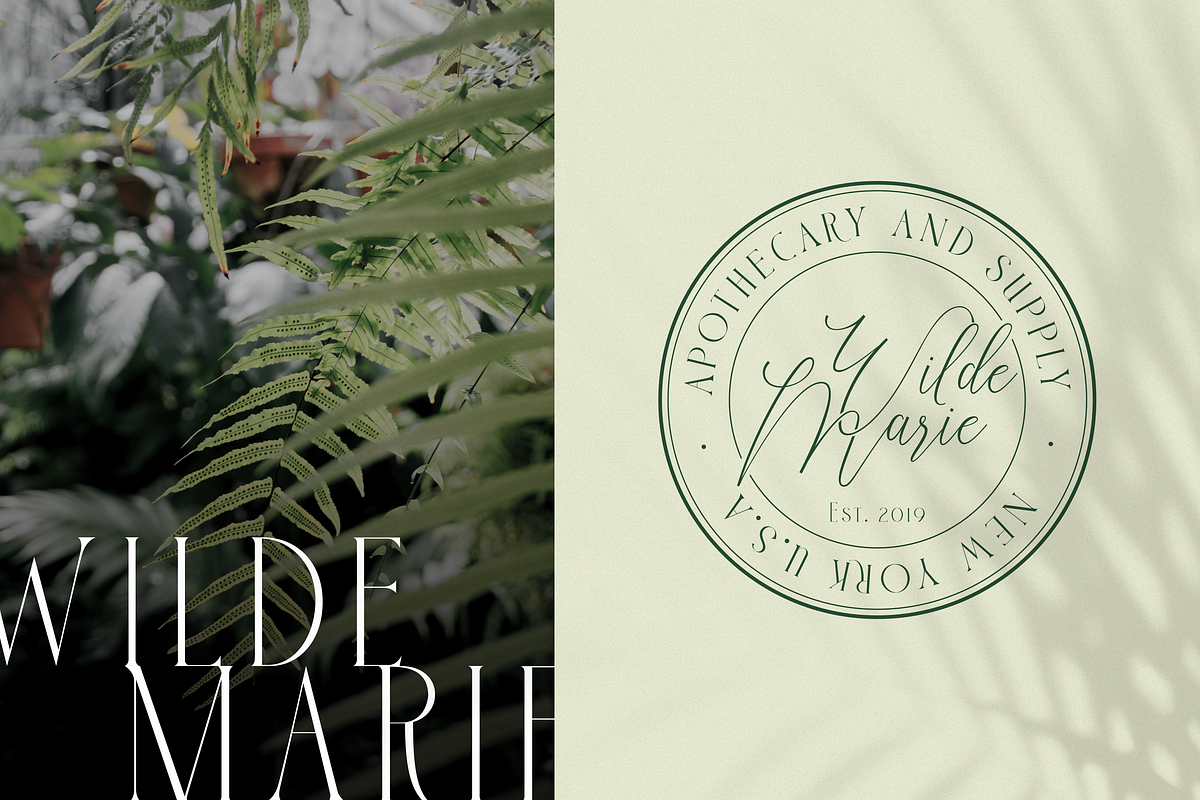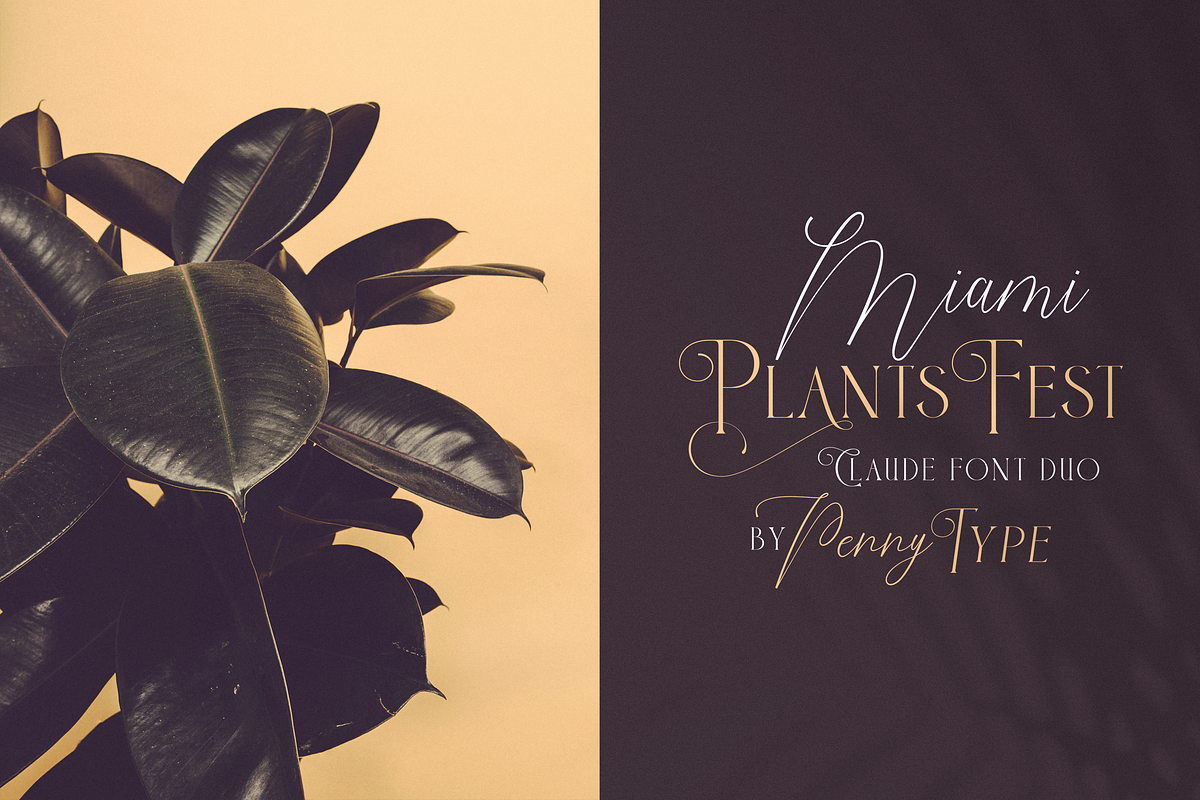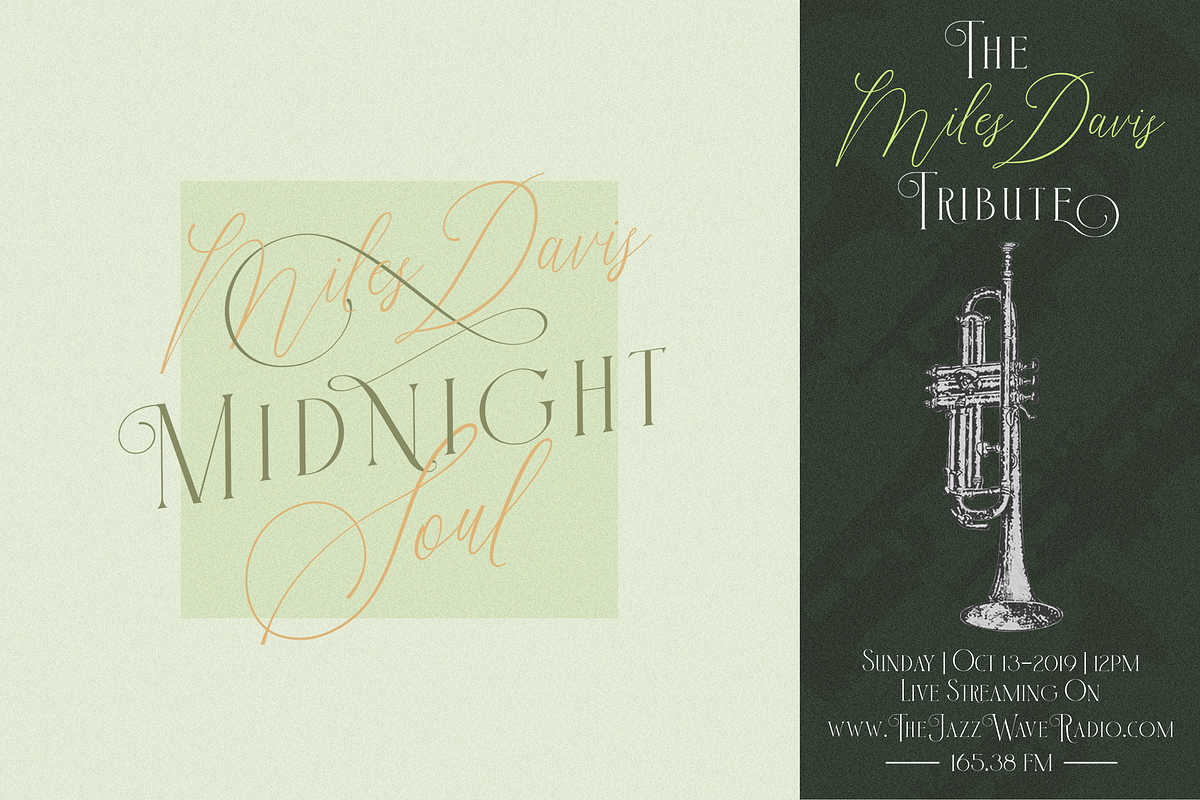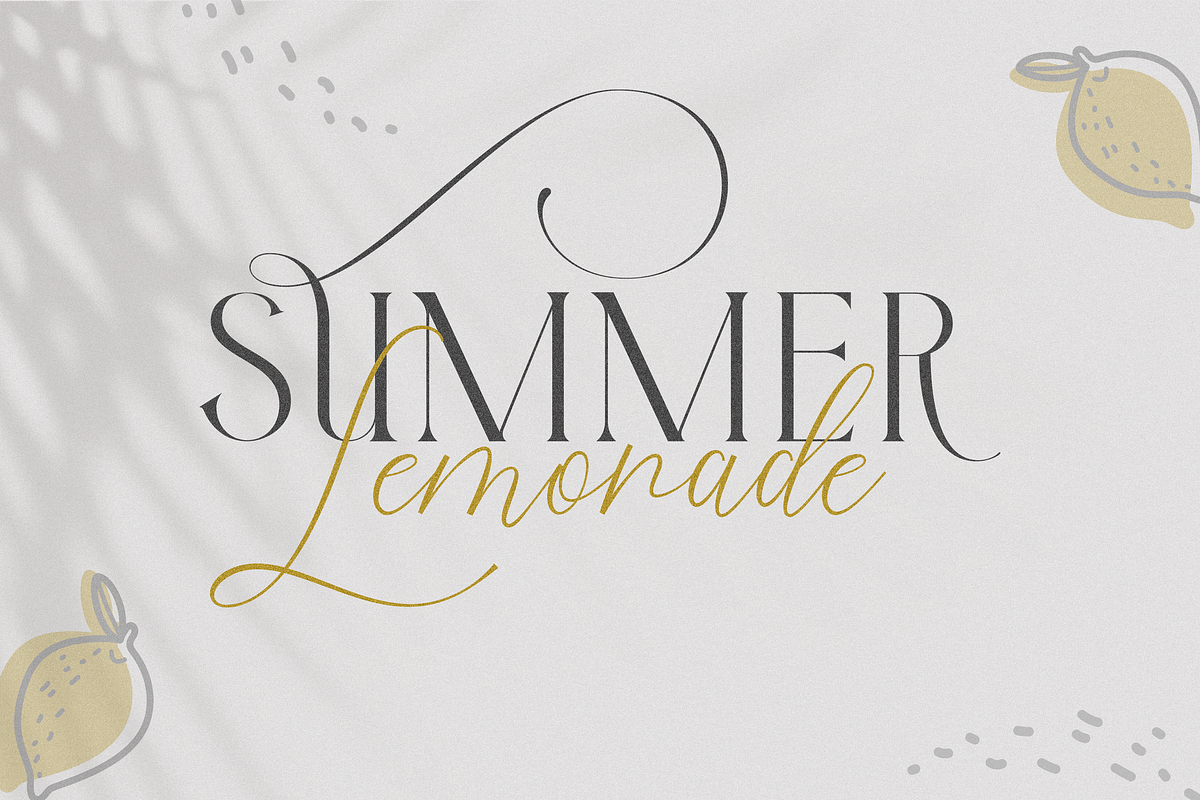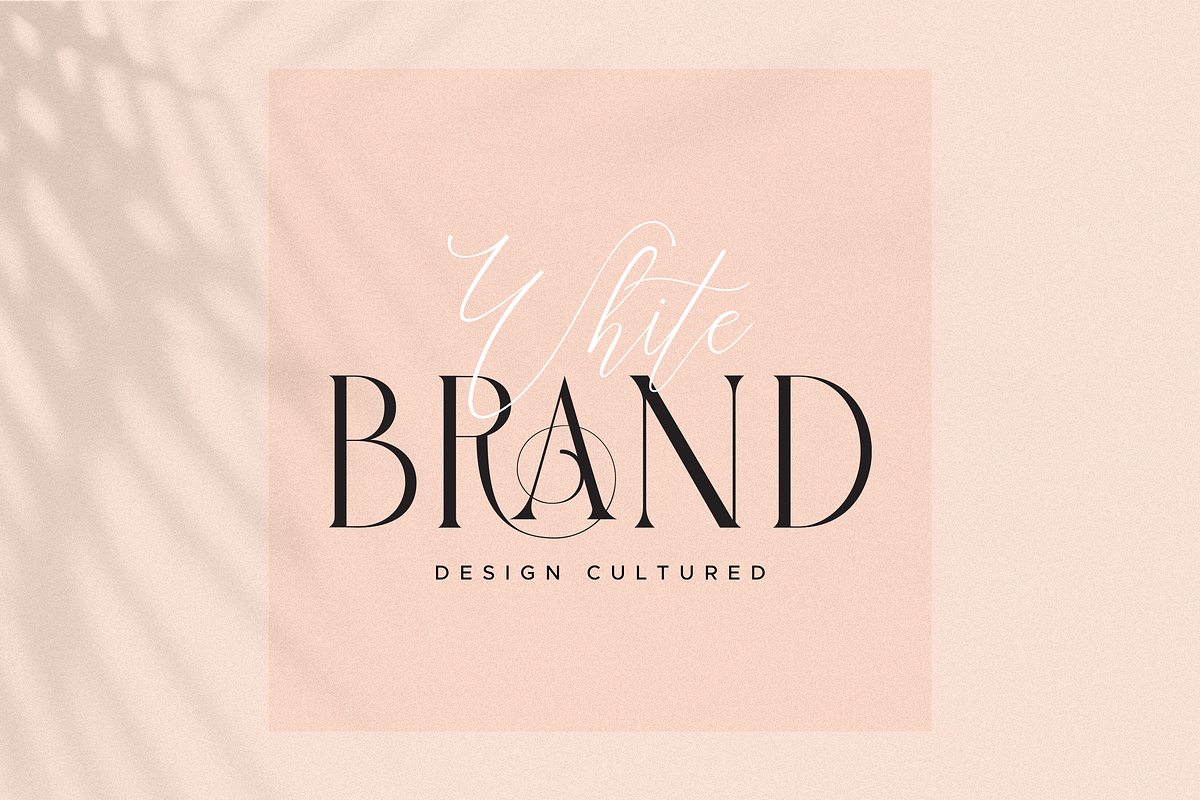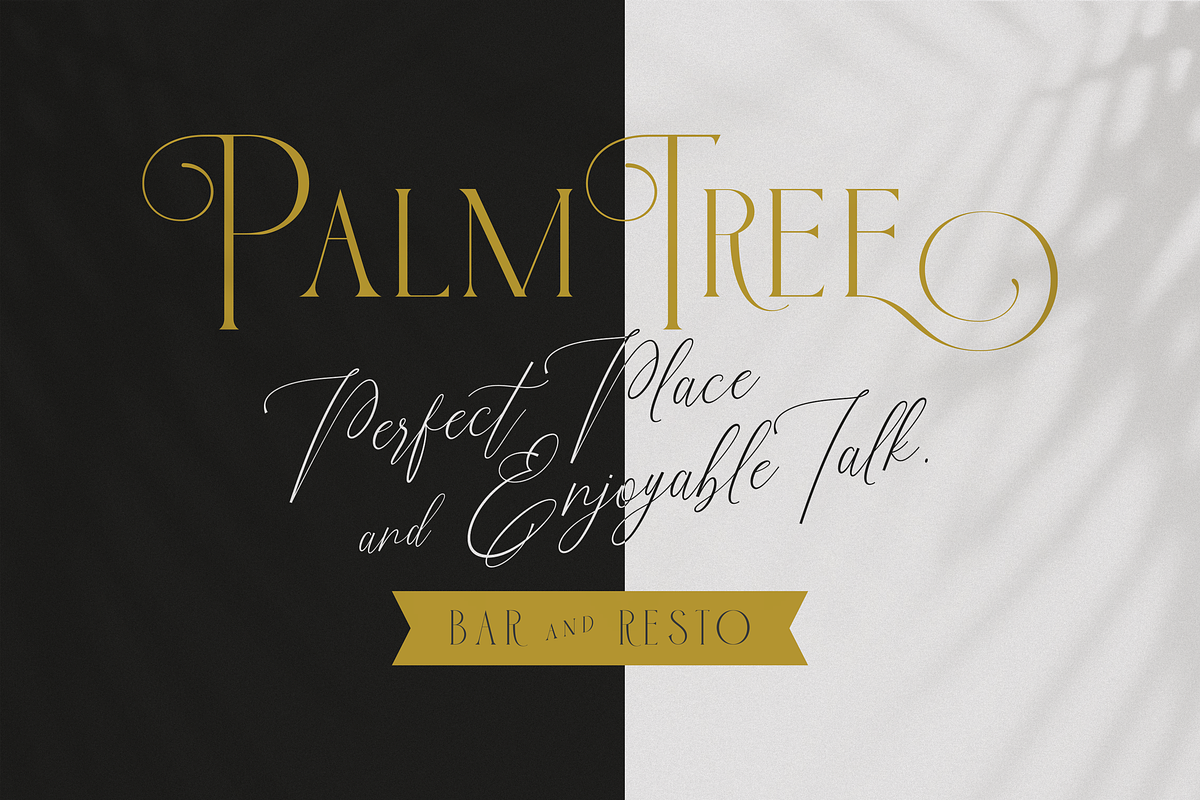
Claude Font Duo
Claude is a elegant font duo, this font very easy to use and really playful. by combining two fonts, you can explore to create a combination that would have been nice.
Claude Script • This font have standard uppercase, lowercase, numbers, punctuation and multilanguage support. For Alternates and Ligatures we will make updates in the future
Claude Serif • This font have standard uppercase, lowercase, numbers, punctuation, multilanguage support, some ligatures and alternates for upercase and lowercase.